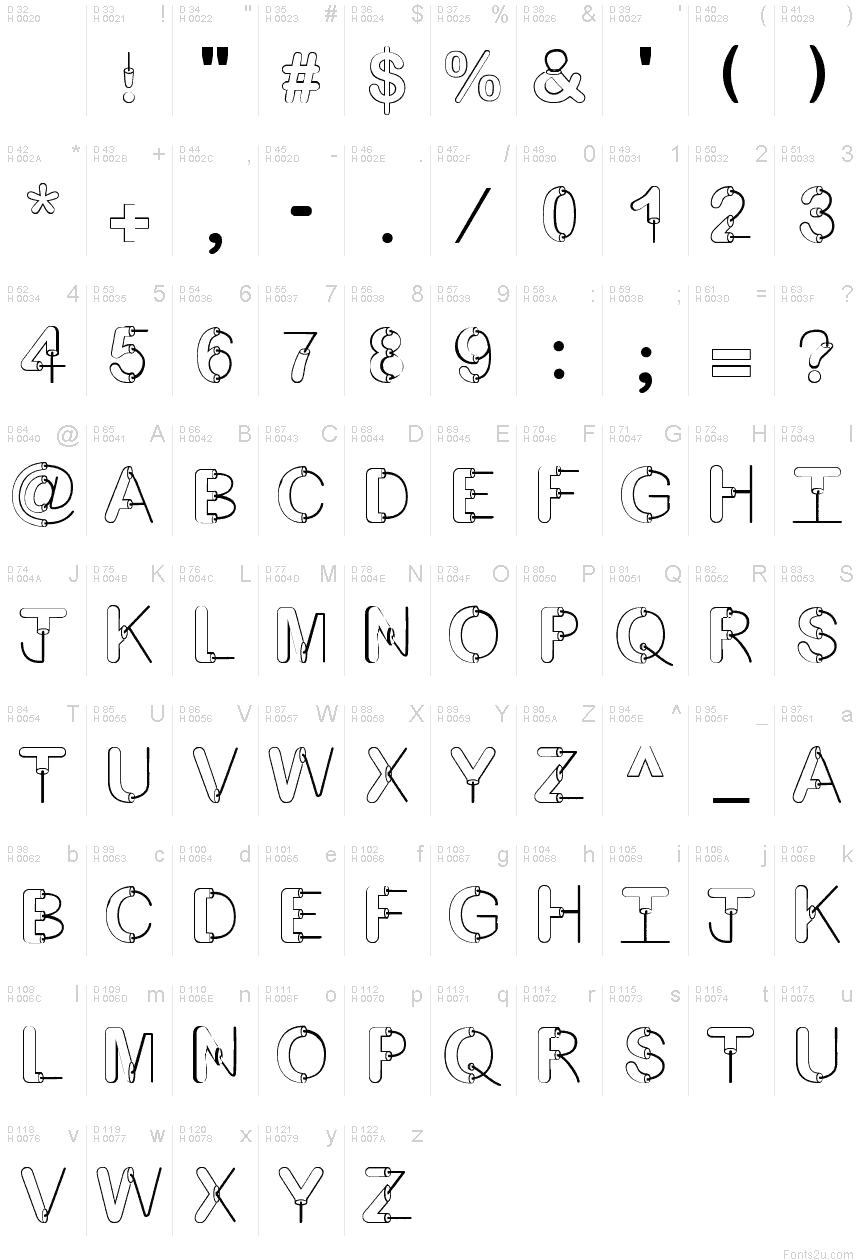
Artsy Fartsy
Artsy Fartsy font by Fish Dicks Original Fonts is a free cartoon display typeface with letters that look like squishy tubes bent into shape. Hollow outlines, rounded corners, and blobby curves give it that doodled-in-the-margins feel, as if the characters were drawn with a chunky marker and left just slightly uneven on purpose. The airy, open interiors keep it readable while the playful wobble adds personality without turning into chaos.
Using Artsy Fartsy, headlines feel pumped full of helium—light, bouncy, and impossible to ignore. This free font works beautifully for kids’ posters, comic covers, birthday invitations, slime or toy branding, YouTube thumbnails, stickers, and game menus. For a simple combo, pair Artsy Fartsy at large sizes with a clean geometric sans in small text to keep the fun on top and the details easy to read.